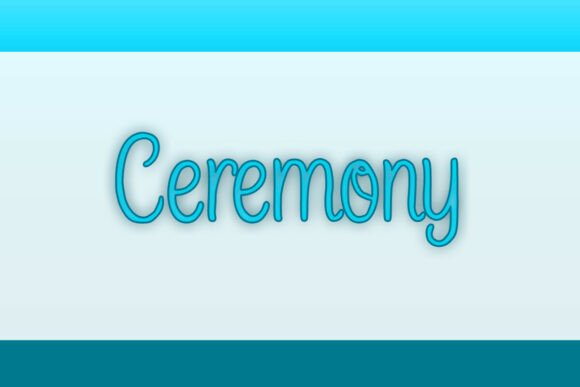
The Perfect Font for a Memorable Moment
Have you ever been to a wedding where the ceremony font used for the invitations and decorations perfectly captured the essence of the occasion? It’s that magical moment when design and emotion come together to create an unforgettable experience. Now, imagine having that same magic in your creative projects.
Enter Ceremony Font, a versatile and elegant typeface designed to elevate your designs and leave a lasting impression. Whether you’re creating captivating headings, engaging blogs, unique logos, or impactful branding, Ceremony Font is the perfect choice to add a touch of sophistication and style. For designers, it’s a valuable asset that can help them stand out from the crowd and make their creative expression shine.
Ceremony Font Key Features
- Font Family: A unique, high-end script font designed for formal and elegant typography.
- Unique Characteristics: Features a flowing, cursive design with intricate details and flourishes, making it perfect for adding a touch of sophistication and elegance to any design project.
- Font Pairing: Designed to be paired with serif and sans-serif fonts, allowing for a wide range of design possibilities and creative expression.
Ceremony Font Review
I recently had the chance to work with the Ceremony Font, and I must say it’s a unique and elegant addition to any design project. ✨ The font’s subtle nuances and delicate flair make it perfect for creating sophisticated and romantic designs.
- Beautiful letterforms and connection between characters
- Excellent for invitations, wedding stationery, and other special occasion designs
However, I did encounter a few limitations while using the font. ⚠️ For one, the font can be quite difficult to read at smaller font sizes, especially for bodies of text. Additionally, the font’s complexity can make it challenging to pair with other fonts, so it’s best to use it as a standalone font.
Overall, I think the Ceremony Font is a great choice for designers looking to add a touch of elegance and sophistication to their projects. While it may have some limitations, the benefits far outweigh the drawbacks. With the right use case, this font can truly shine and create stunning designs that leave a lasting impression.
Use Ceremony Font for formal or elegant designs, such as wedding invitations, graduation announcements, or luxury product packaging.
Pair Ceremony Font with a neutral or contrasting background color to create a visually appealing design.
Experiment with different font sizes and styles to create a unique and eye-catching design.
Ceremony Font is commonly used for:
Graduation announcements and diplomas
Luxury product packaging and branding
Formal event invitations and programs